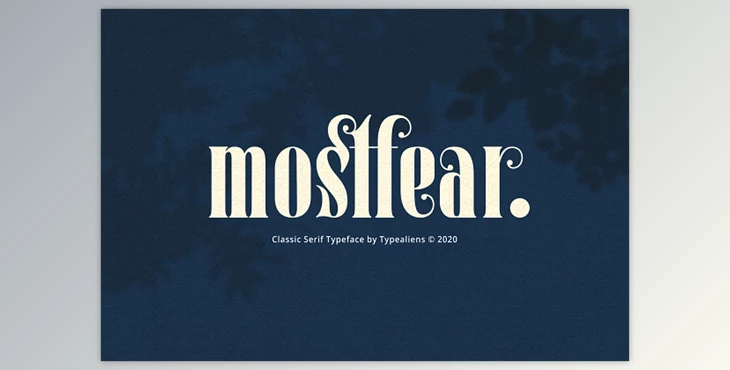
Mostfear Font 4535478: MOSTFEAR - is a traditional serif font that can be used now. It's suitable for magazine cover design, such as headlines and sub-headlines. And being an open-type font, it can also work well for logo designs or prints like letterheads, business cards, envelopes, folders, and newspaper headlines.
While it's a retro fashion, this typeface can look stunning if you desire a simple and sleek contemporary design.
Some great features of Mostfear Font:
- Alternate Characters. Ligatures. Discretionary Ligatures. Support Multilingual Characters.